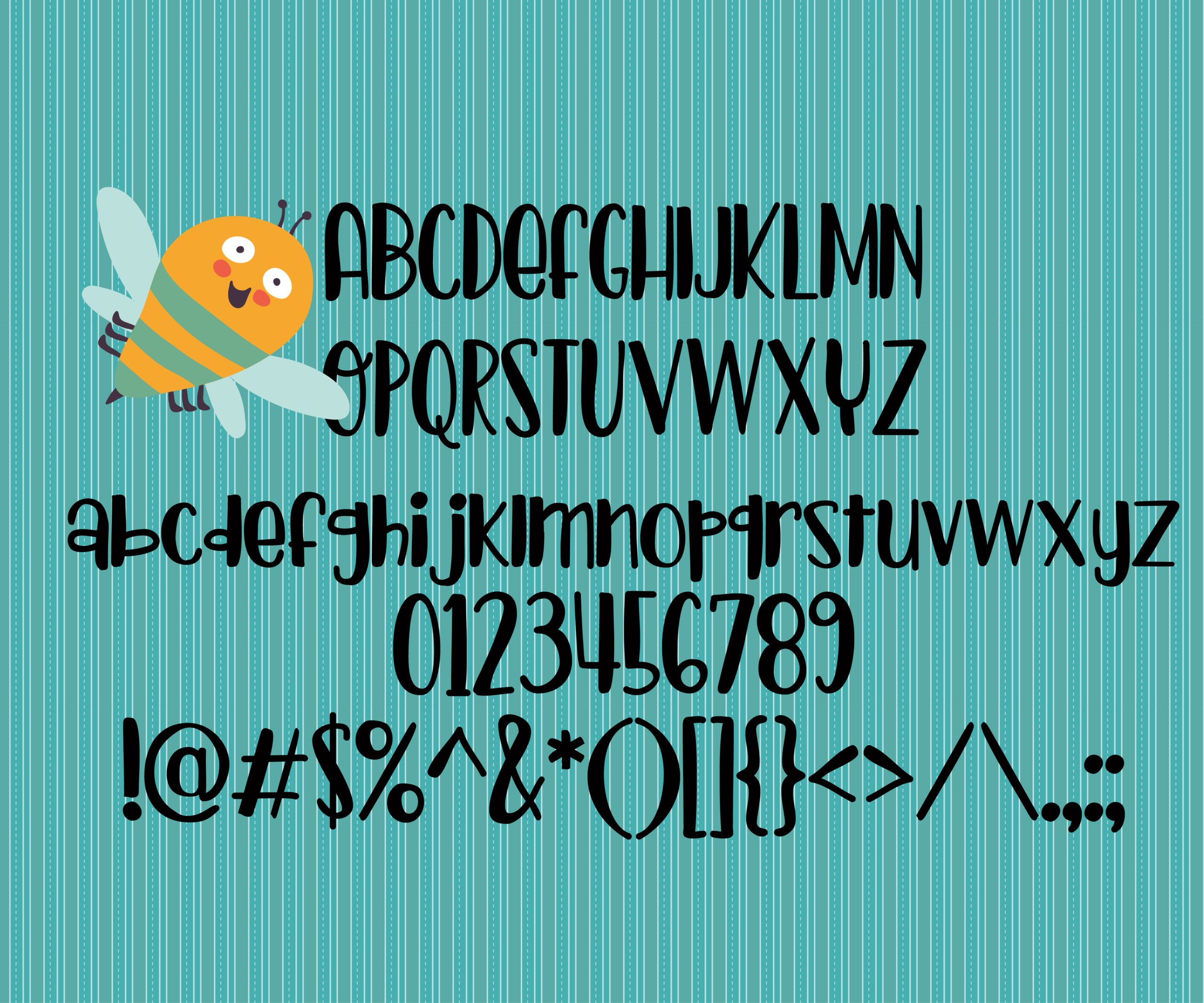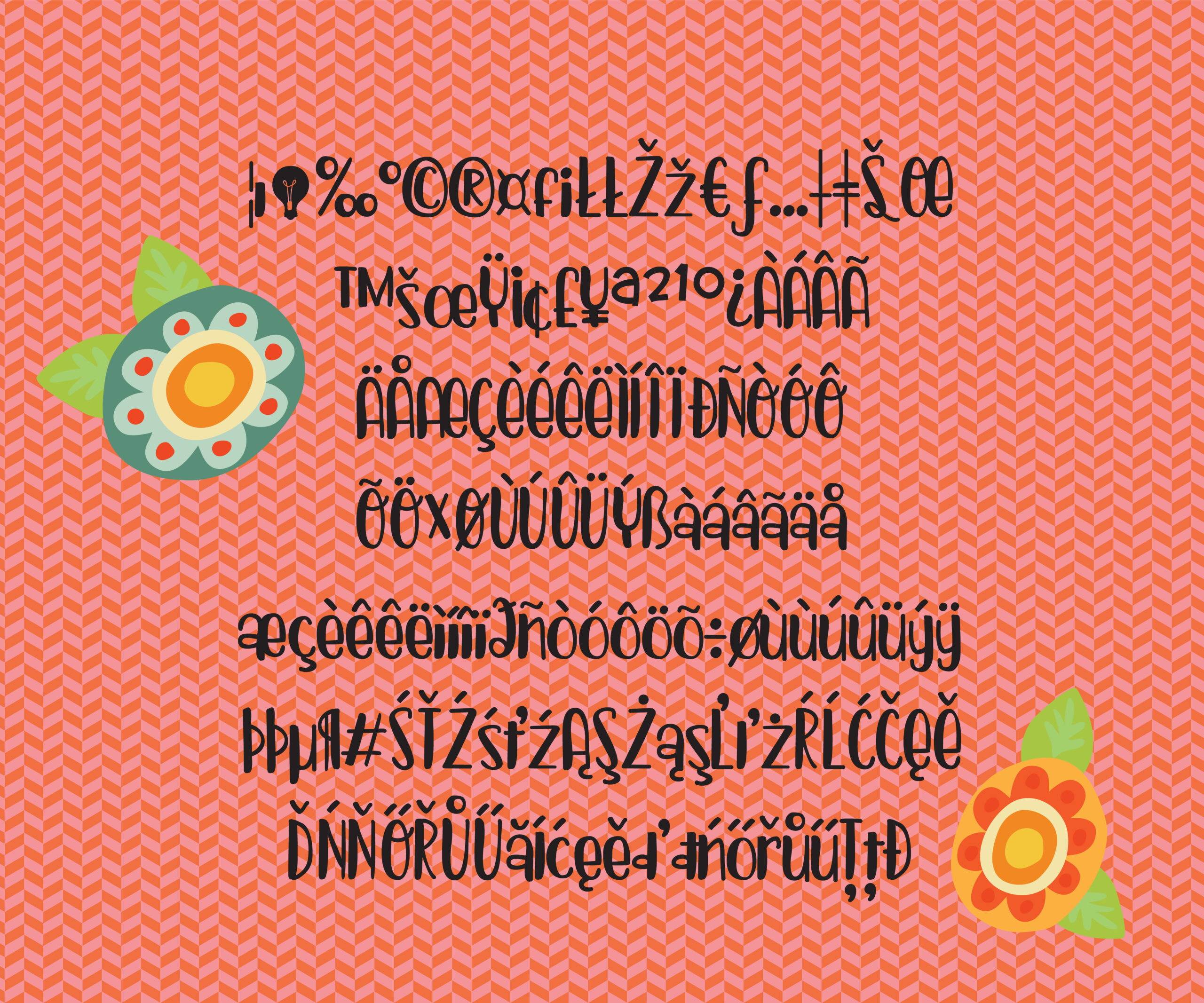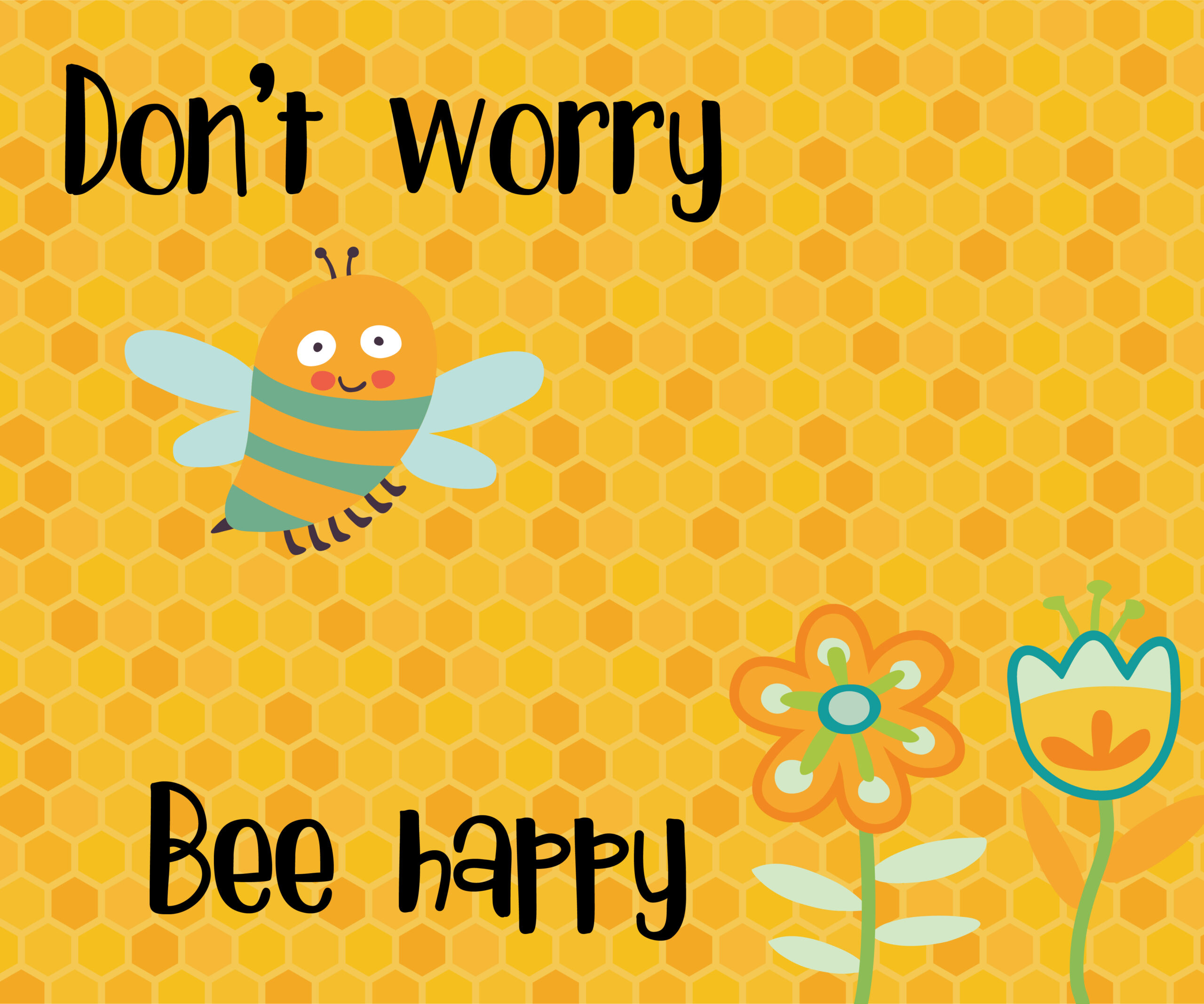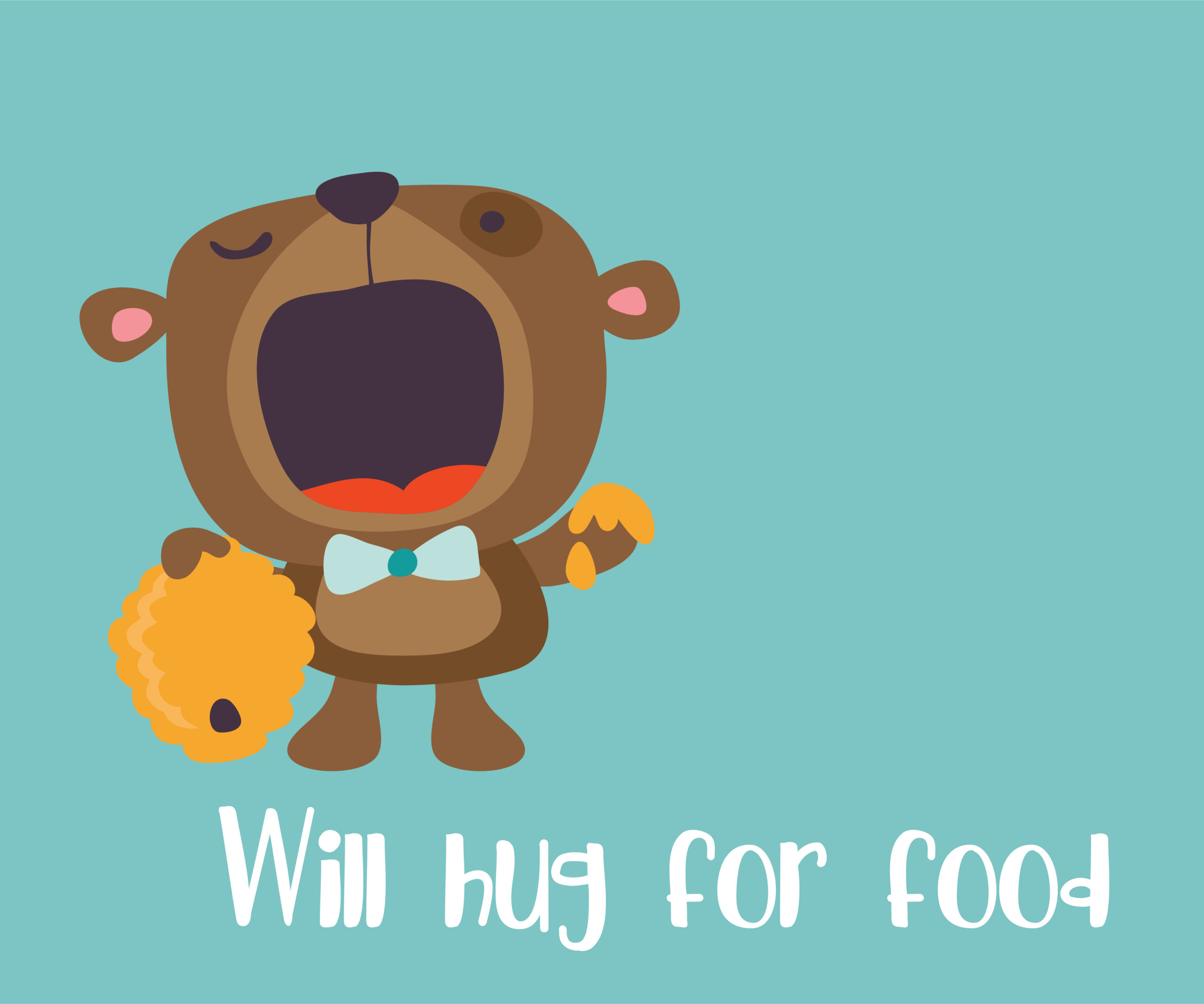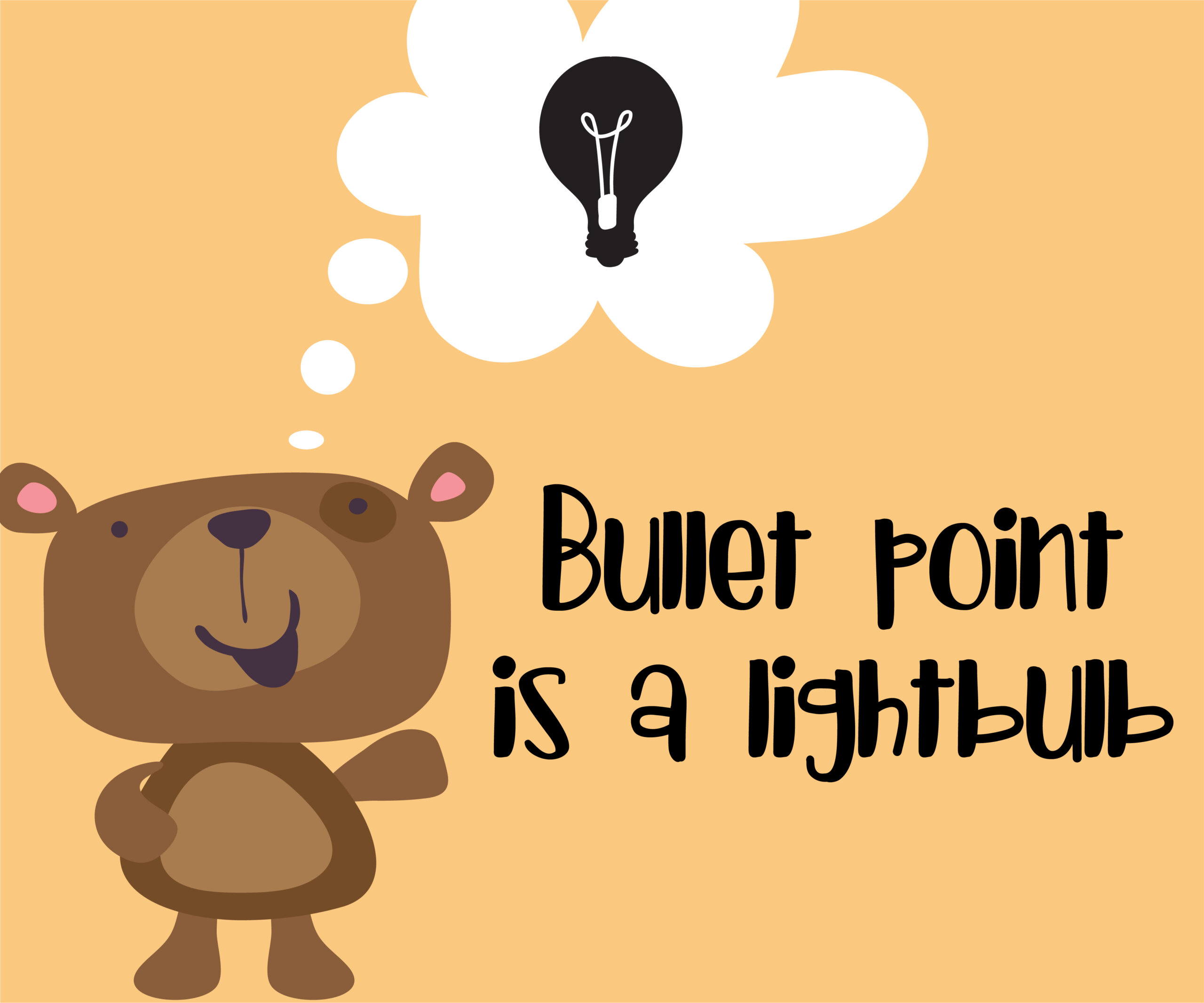
Incandescent Bulb Font
About Incandescent Bulb Font
Incandescent Bulb is a hand-crafted, hand-printed font has a whimsical mixture of thick and thin lines. The bullet point is a lightbulb, giving this a very eclectic feel.